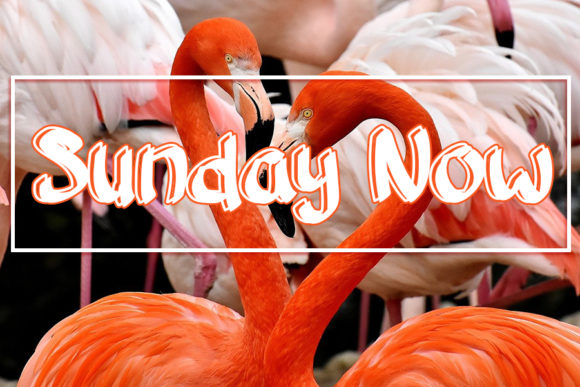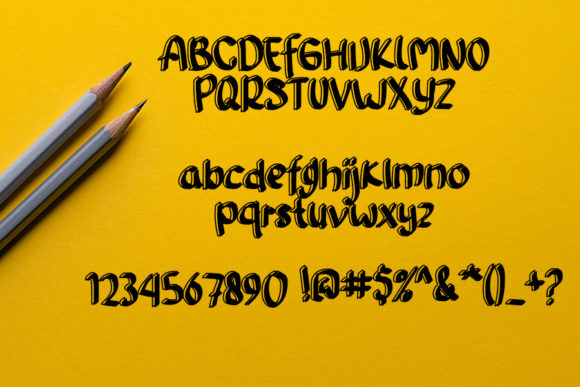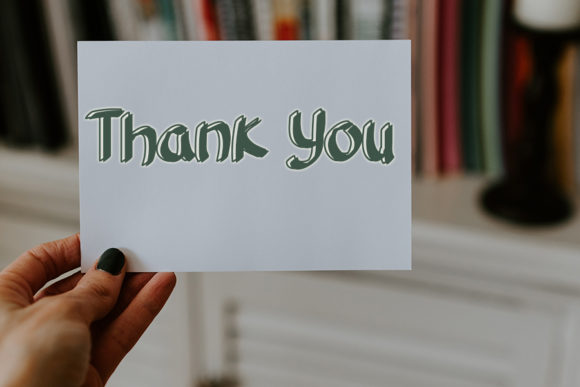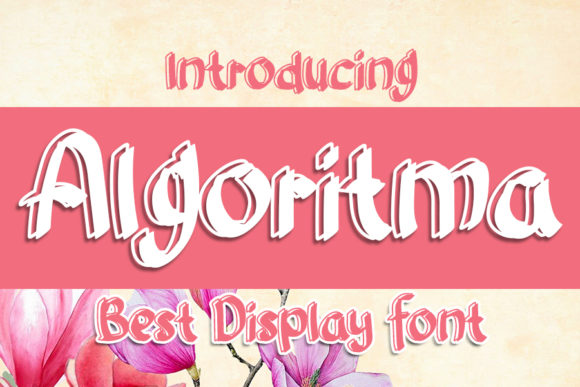
The Joy of Algoritma Font: A Designer’s New Best Friend
I still remember the design project that led me to discover Algoritma Font. I was working on a whimsical branding campaign for a children’s toy company, and I was struggling to find the perfect font that could capture the playful and imaginative spirit of the brand. That’s when I stumbled upon Algoritma Font, and it instantly became my go-to choice. In this article, I’ll share my experience with Algoritma Font, its features, and how to make the most of it in your designs.
An Honest Review of Algoritma Font
What I Love About Algoritma Font ✨
• 💕 Extremely cute and quirky design that’s perfect for display fonts
• 🎉 Highly legible, even at smaller sizes
• 🔥 Supports multiple languages and has a wide range of characters
• 👍 Great for headlines, titles, and short paragraphs
• ✅ Easy to pair with other fonts due to its unique style
• ⚠️ May not be suitable for body text or long paragraphs due to its display nature
• 🤔 Limited availability of stylistic alternates, but still offers a range of OpenType features
The Backstory of Algoritma Font
Algoritma Font was designed with the intention of creating a unique and playful display font. The designer aimed to craft a font that would bring joy and whimsy to designs, while still being legible and versatile. Although I couldn’t find any information on the designer’s inspiration, it’s clear that Algoritma Font was created with the goal of making designs stand out.
What is Algoritma Font best used for? Algoritma Font is best used for display purposes, such as headlines, titles, and short paragraphs. It’s perfect for designs that require a playful and whimsical touch.
Is Algoritma Font suitable for body text? No, Algoritma Font is not recommended for body text or long paragraphs. Its display nature makes it more suitable for short, attention-grabbing text.
In conclusion, Algoritma Font is a delightful and quirky display font that’s perfect for adding a joyful touch to your designs. With its highly legible design, wide range of characters, and OpenType features, it’s an excellent choice for designers, crafters, and creative hobbyists. By following the practical guide and exploring the similar fonts and FAQs, you’ll be well on your way to making the most of Algoritma Font in your designs.